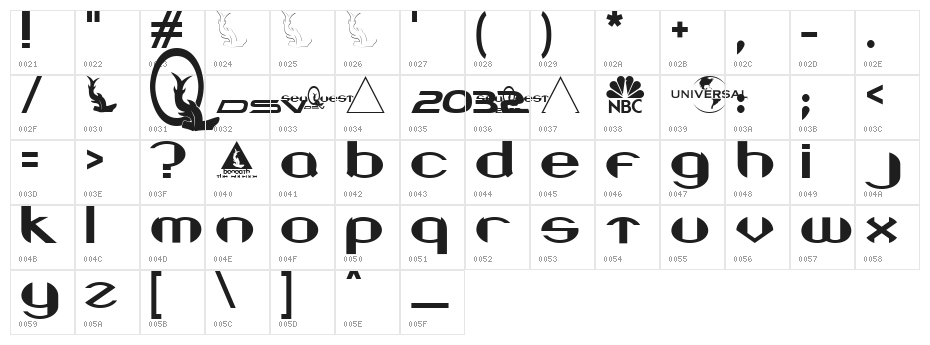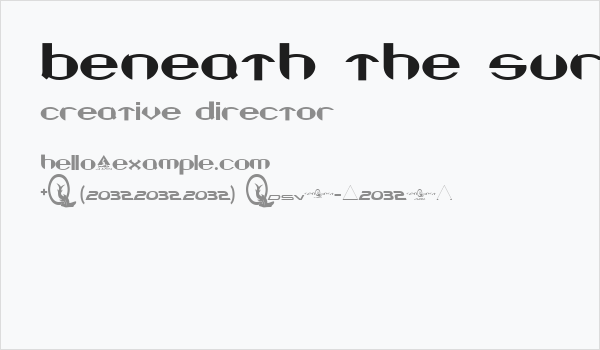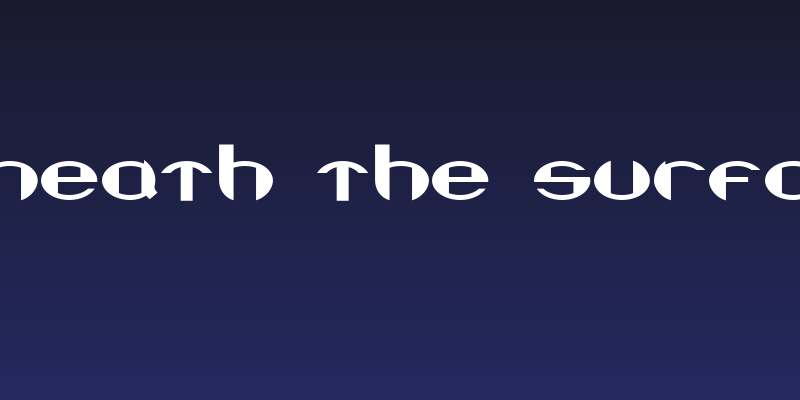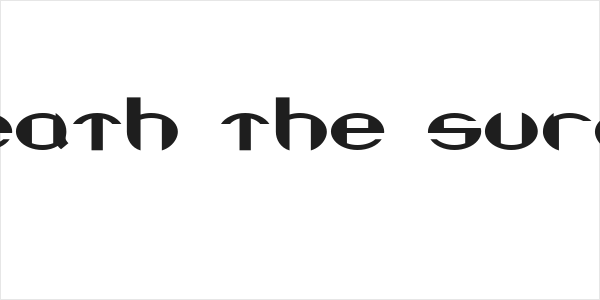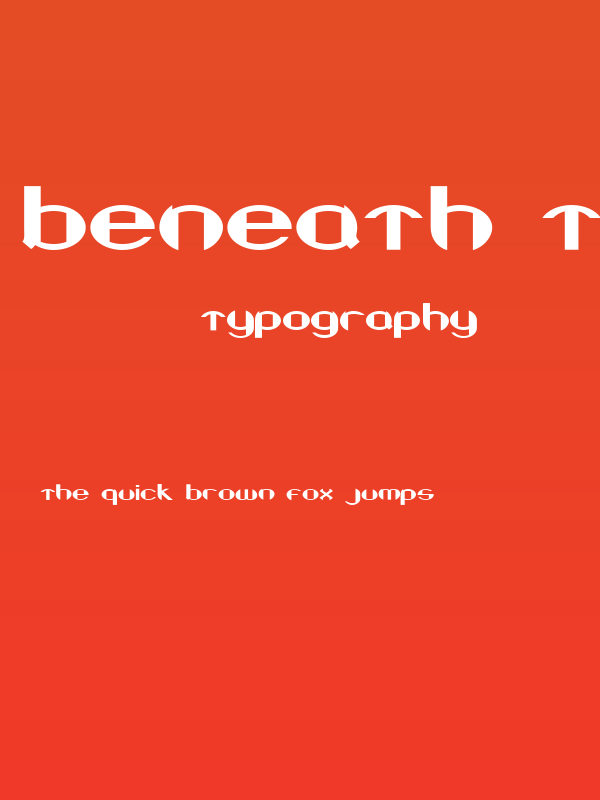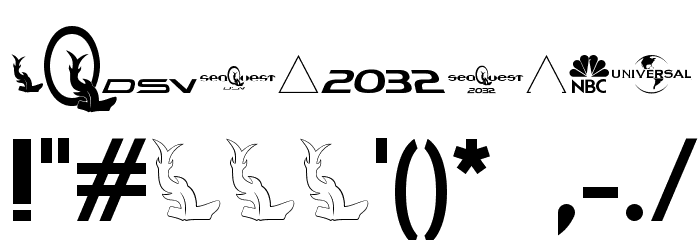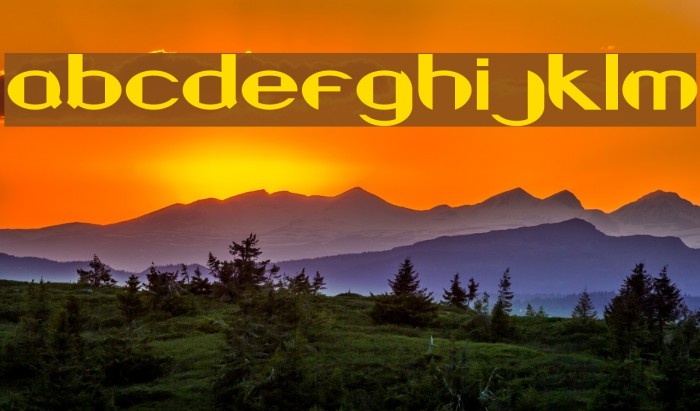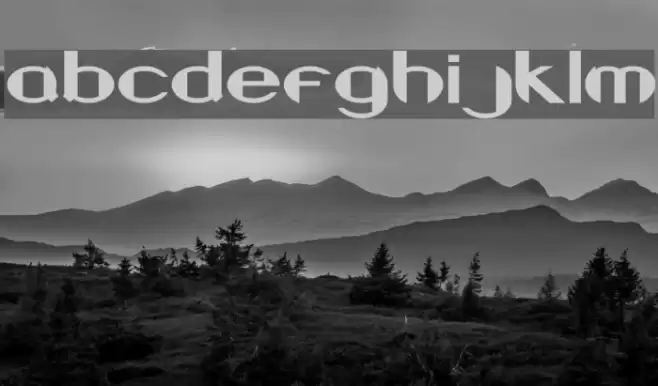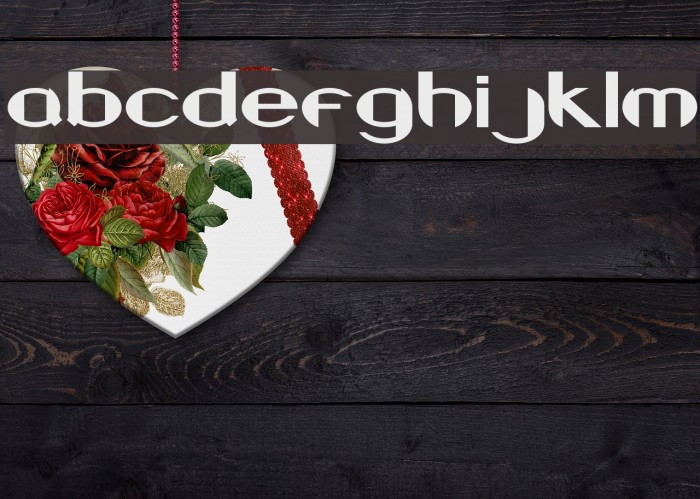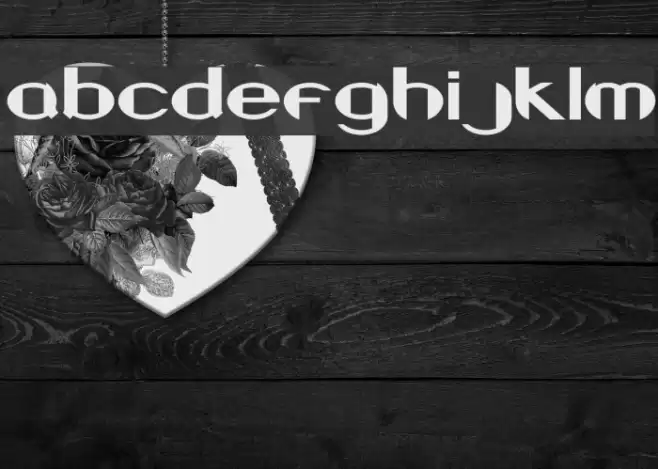
Beneath the Surface Font
Beneath the Surface Description
This font features a futuristic and geometric design, characterized by its bold and angular letterforms. The uppercase and lowercase letters share a consistent style, with sharp edges and a distinct, modern aesthetic. The numbers and special characters maintain this theme, offering a cohesive look across all glyphs. The font's unique style makes it stand out, with a design that suggests movement and innovation. Its boldness and geometric shapes make it suitable for projects that require a modern and striking appearance.
| Overall Style | Futuristic |
| Use Case | Logos, Headlines, Posters |
| Proposed Projects | Ideal for sci-fi themed designs, tech branding, futuristic posters, and video game titles. |